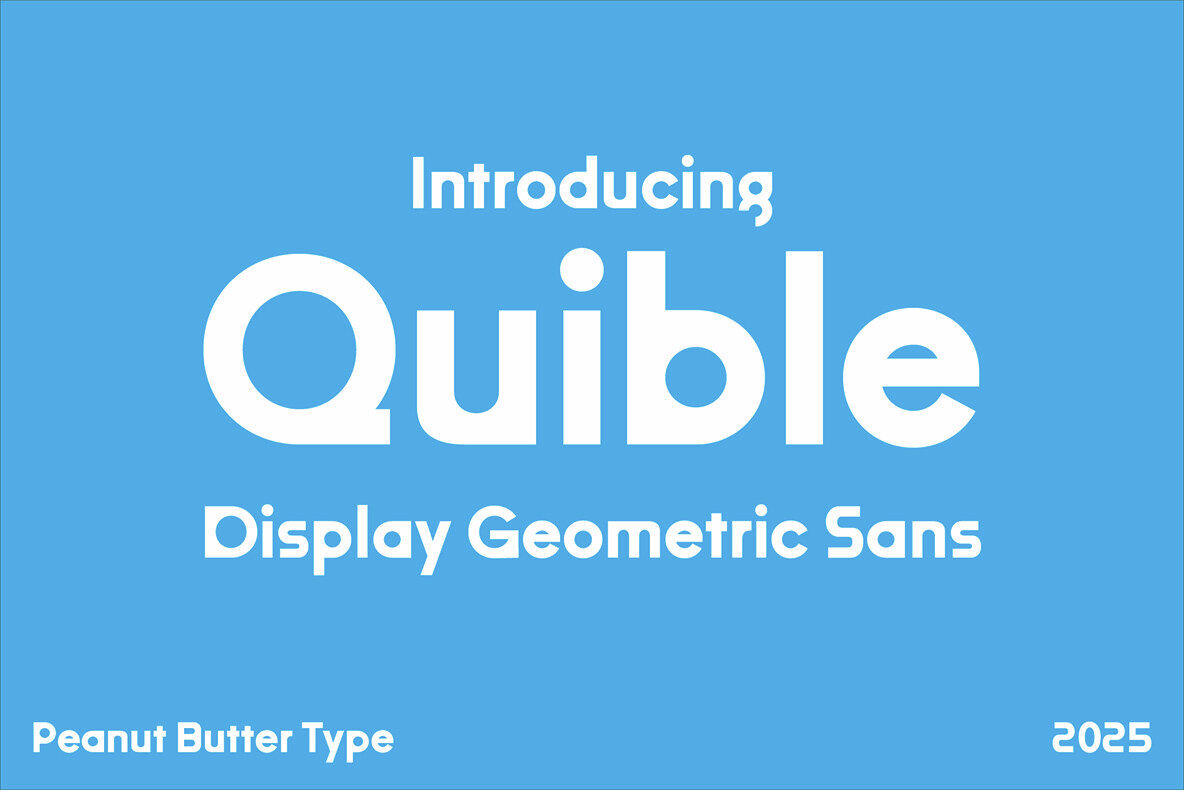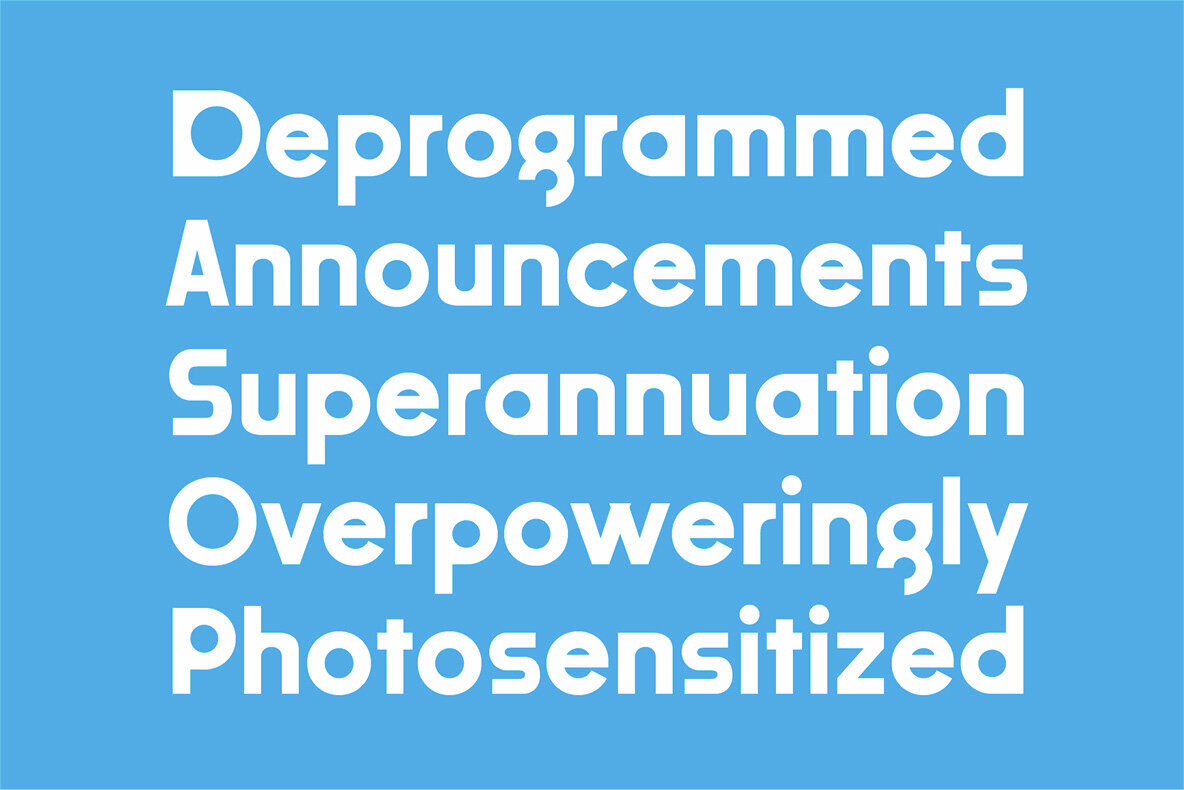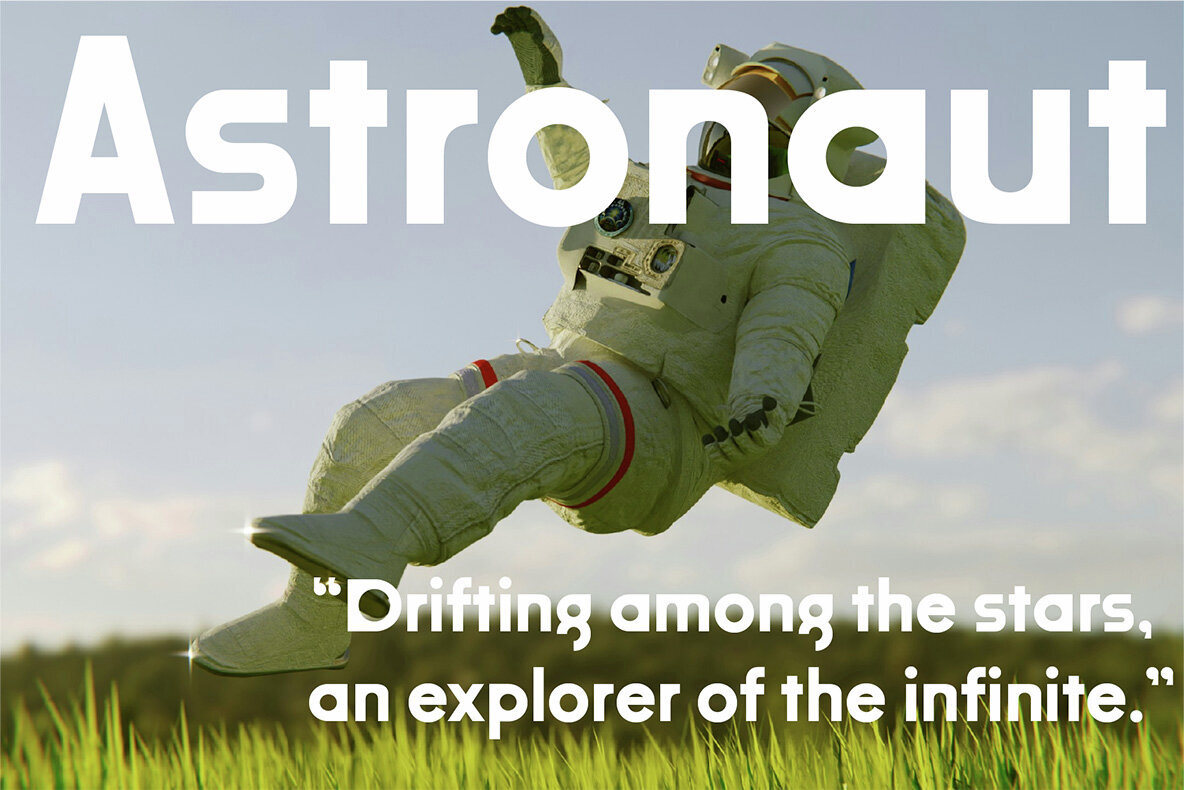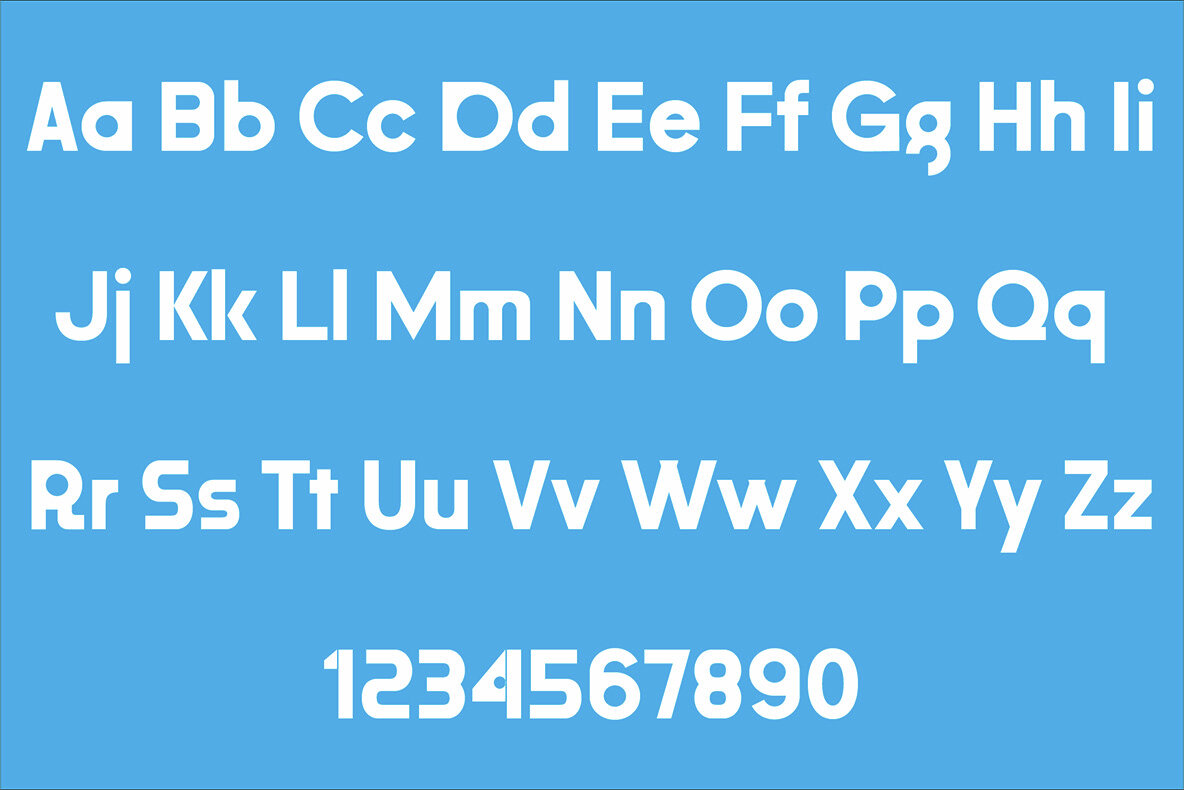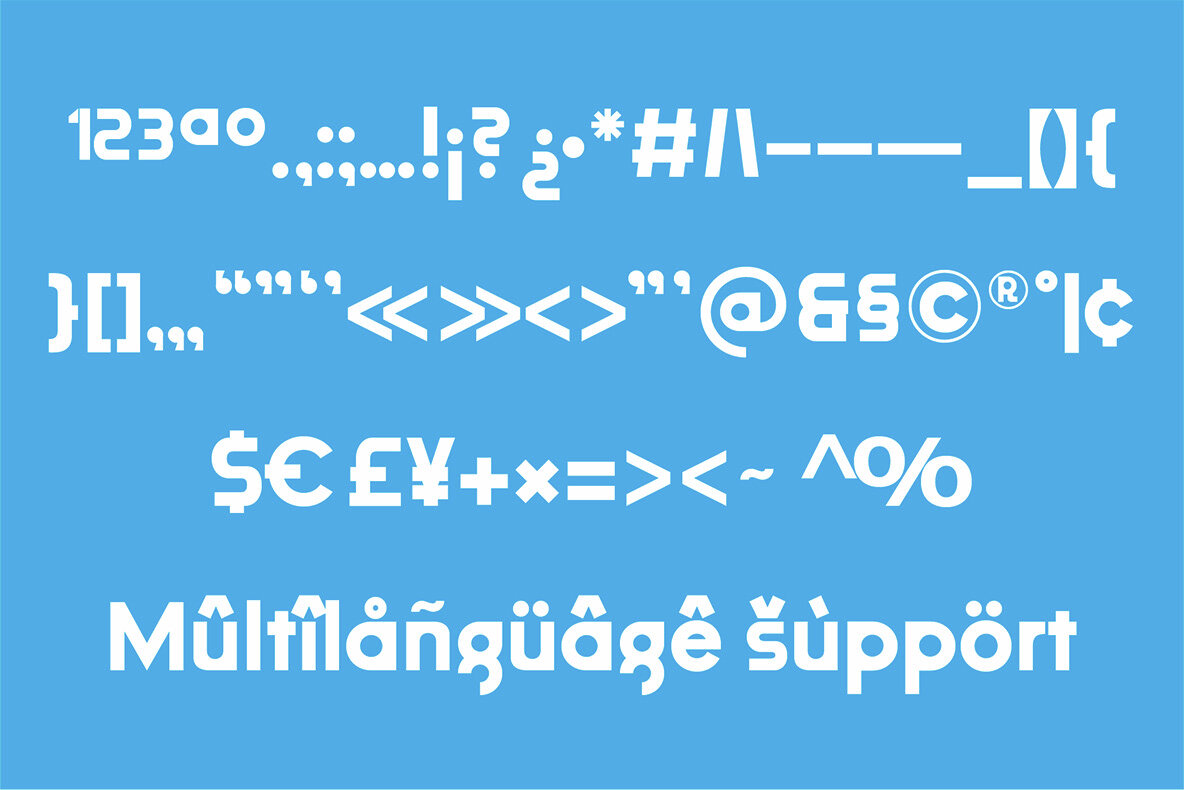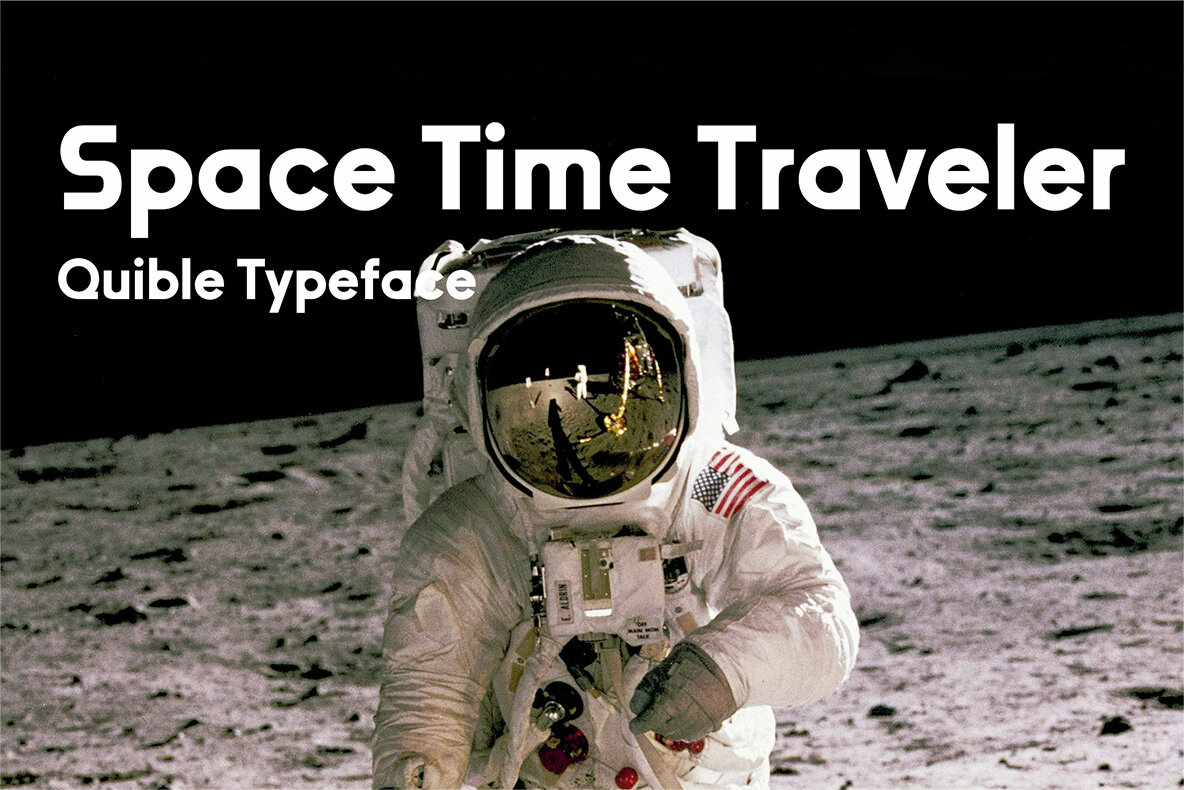
Quible Font
Quible Regular
Quible is a geometric display sans serif typeface designed for clarity and visual impact. Its carefully balanced letterforms blend sharp lines with gentle, rounded curves, creating a modern yet approachable aesthetic. The minimalist structure supports bold headings, strong branding, and expressive layouts while maintaining an understated elegance. Quible's refined design ensures it stands out in both digital and print applications. Its contemporary personality adds a touch of playfulness, making it an adaptable choice for designers seeking distinctive style and readability across projects.Quible Geometric Sans Serif Typeface